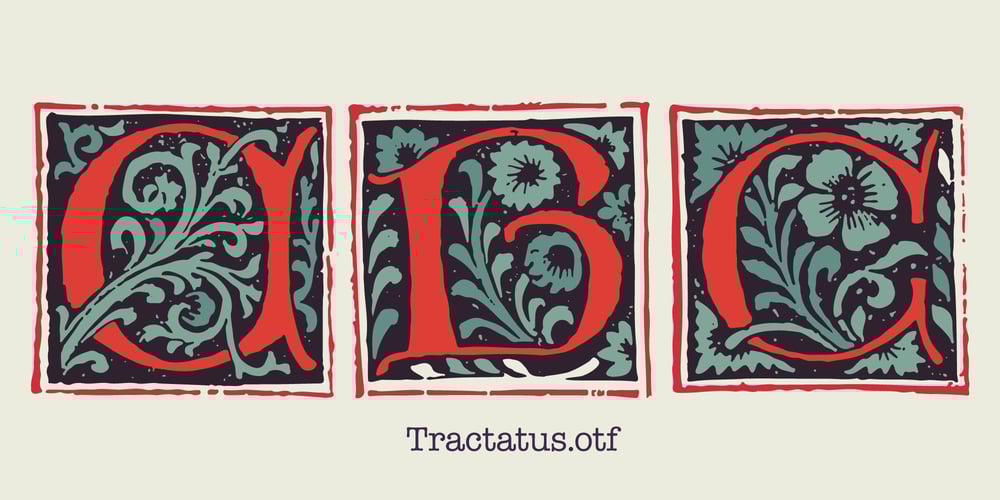
Tractatus Font Family was designed by Roman Korolev and published by Kaer. Tractatus contains 2 styles and family package options. These initials set I collected from “Tractatus sacerdotalis de sacramentis”, published in the city of Lugrun, printed by Arnaldum Guillermum de Brocario in 1503.Tractatus font family has Regular and Colored styles. It’s all you need to precisely imitate medieval style text. Use this font as a decorative element at the beginning of a paragraph or section, other part of the paragraph should be in regular black letter font.You’ll get Drop Caps & Numbers set.—*You can use color fonts in PS CC 2017+, AI CC 2018+, ID CC 2019+, macOS 10.14 Mojave+ **Please note that the Canva & Corel & Affinity doesn’t support color fonts!**Please download this test file with only A letter ( https://www.dropbox.com/s/1lr7fify0n520ms/Tractatus-Test.otf?dl=0 ) to check your app & system.*—Best, Roman.Thank you!